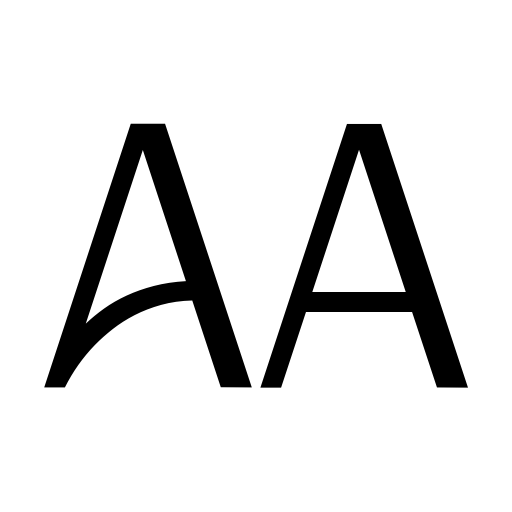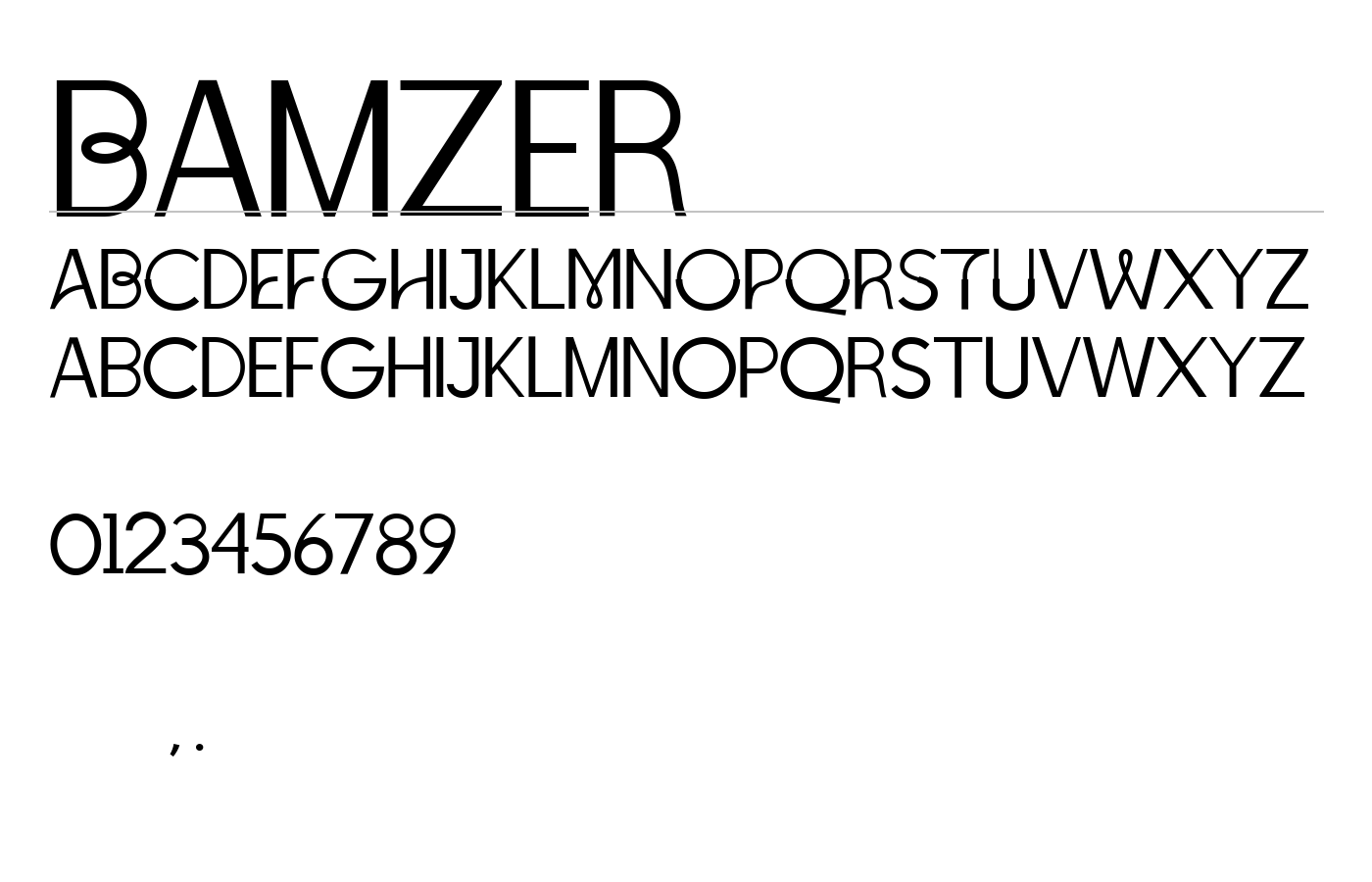
Bamzer is a sleek and modern sans serif font with a unique, artistic flair seen in its distinctive letterforms and subtle geometric influences. Its clean, slender strokes and elegant curves make it perfect for contemporary branding, fashion, and editorial design that seeks a sophisticated yet creative look. This font works well in headlines and logos where a stylish, refined, and slightly avant-garde impression is desired.
Bamzer Font